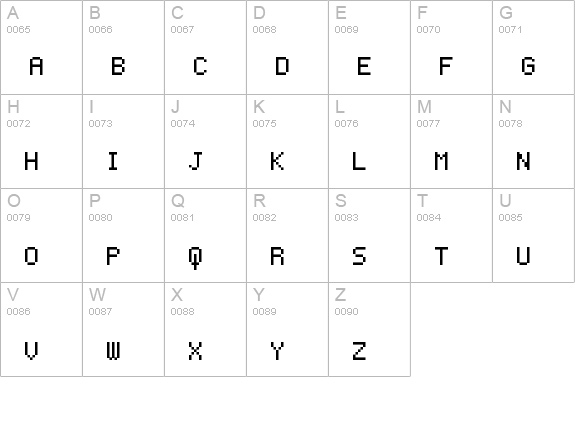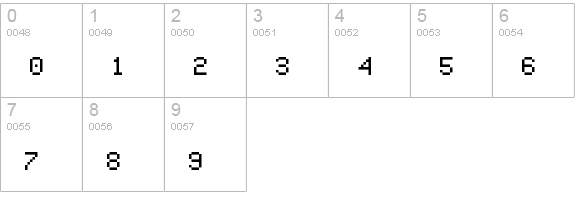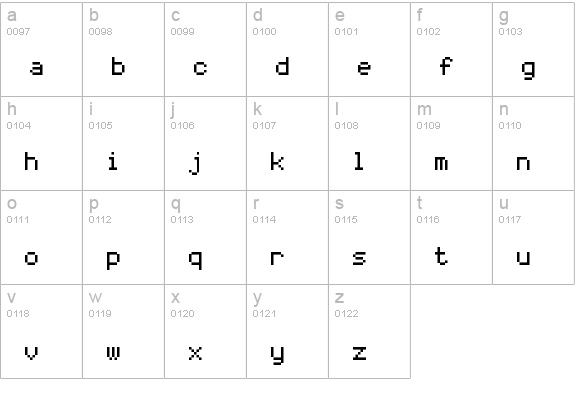
Coder's Crux Regular Font Details
Coder's Crux Regular is the standard, neutral variant in the Coder's typeface family \xE2\x80\x94 well suited to general body text, paragraphs, and standard typographic work.
Coder's Crux Regular font is a sleek and modern typeface designed for coding and programming enthusiasts. With its clean lines and sharp edges, this font is perfect for displaying code snippets, programming languages, and technical documentation. Coder's Crux Regular exudes professionalism and precision, making it an excellent choice for any project that requires a contemporary and tech-savvy look. What sets Coder's Crux Regular apart is that it is available for free download at FontsMarket.com. This means that you can easily access this stylish font without any cost, allowing you to enhance your designs and projects without breaking the bank. Whether you're a seasoned developer looking to spruce up your code editor or a designer in search of a unique typeface for your next project, Coder's Crux Regular is a versatile and reliable option that won't disappoint. Download it today and take your designs to the next level!